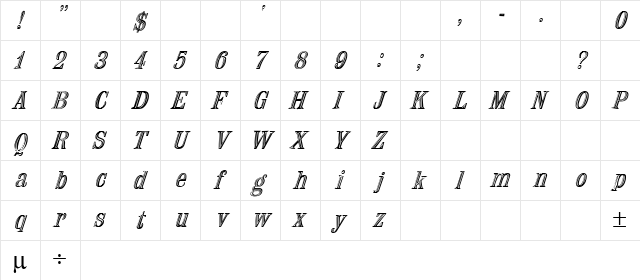
Dennis Italic Regular
Design Context for Dennis Italic Typeface
Dennis Italic is a composed and adaptable typeface that performs quietly and consistently across a wide range of design contexts. The slanted form adds forward momentum and visual energy.
Pro Tip: Use Dennis Italic for emphasis, pull quotes, and subheadings where its slanted energy can add rhythm to the layout.